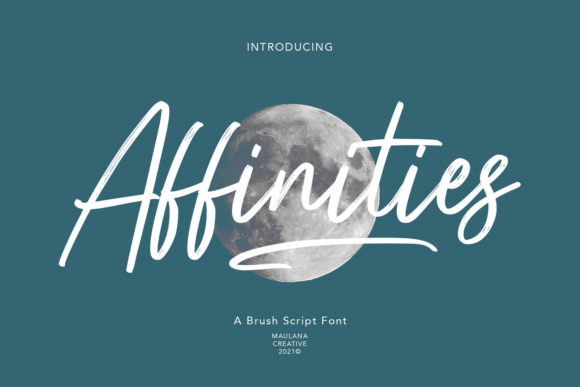
The Affinities Font: A Lovely Brushed Script to Elevate Your Designs
Have you ever been in the middle of a design project, and suddenly, you’re stuck on finding the perfect font? I recall a recent experience where I was working on a romantic wedding invitation, and my client requested a font that was both elegant and playful. After scouring through numerous font libraries, I stumbled upon the Affinities font, and it instantly became the perfect fit. In this article, I’ll share my journey with this lovely brushed script font, its features, and how to make the most of it in your designs.
A Personal Review: What I Love About Affinities Font
The Affinities font has quickly become one of my go-to fonts for various design projects. Here’s what I love about it:
- ✨ Warm and Romantic: The Affinities font exudes a sense of warmth and romance, making it perfect for designs that require a personal touch.
- ✅ Highly Versatile: This font can be used for a wide range of projects, from wedding invitations and greeting cards to branding and packaging.
- 💫 Unique Character: The brushed script style gives the font a distinctive character that sets it apart from more traditional fonts.
While the Affinities font is an excellent addition to any design project, there are a few minor quirks to be aware of:
- 🤔 Legibility at Small Sizes: As with many script fonts, Affinities may become less legible at very small sizes. It’s best to use it at larger sizes (20px and above) to ensure optimal readability.
- ⚠️ Limited Use in Formal Designs: The playful, cursive nature of the font may not be suitable for very formal or corporate designs.
The Affinities font was designed with the intention of creating a warm, romantic, and playful script font that could be used for a wide range of design projects. The designer aimed to craft a font that would evoke feelings of love, connection, and joy. With its unique brushed script style, the Affinities font is sure to bring a touch of personality to any design.
| What is the Affinities font best suited for? | The Affinities font is ideal for designs that require a warm, romantic, and playful touch, such as wedding invitations, greeting cards, and branding projects. |
| Is the Affinities font suitable for body text? | While the Affinities font is beautiful, it’s not recommended for body text due to its script nature and potential legibility issues at small sizes. |